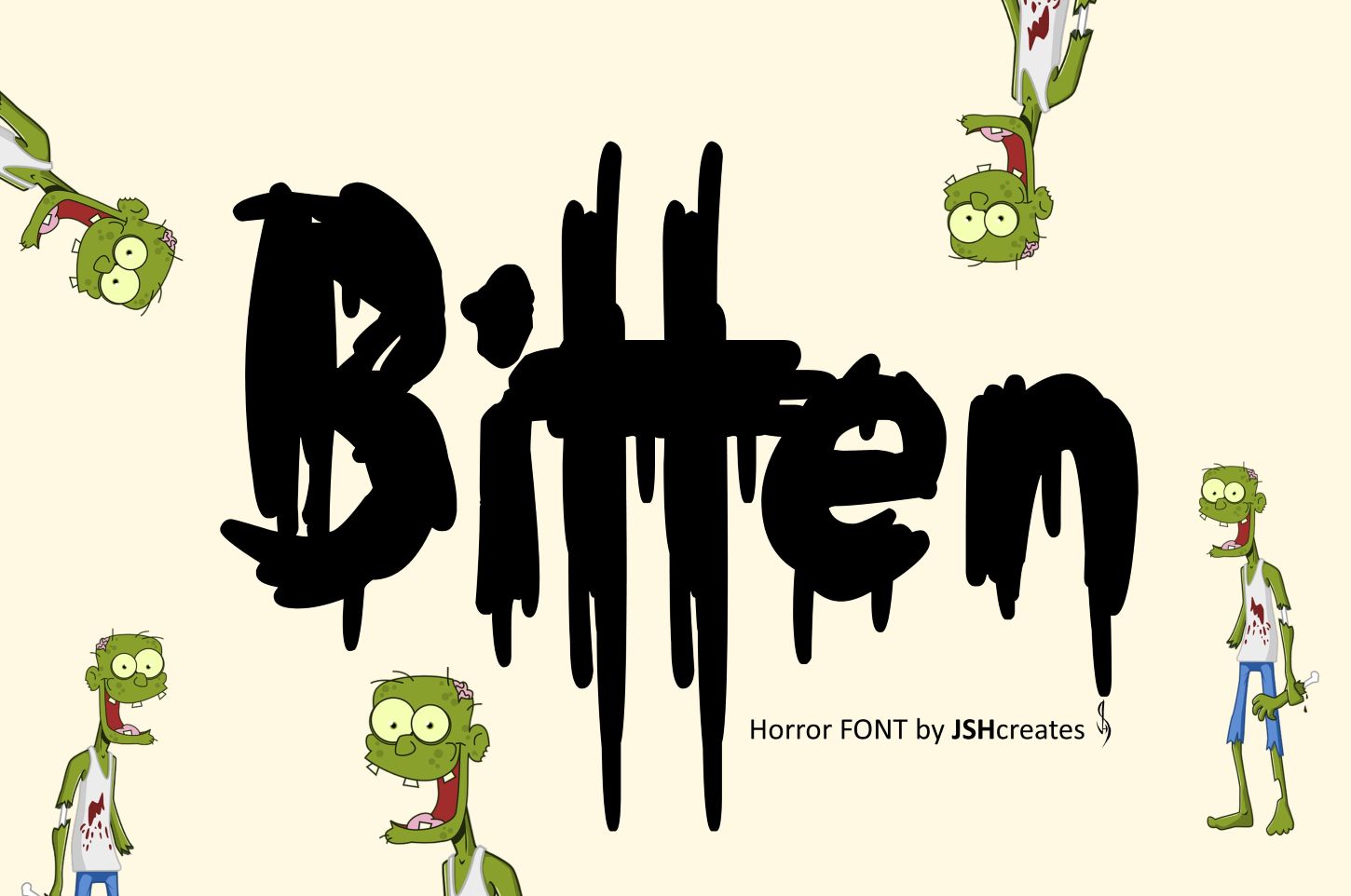
Bitten Font
Dripping horror font. “Bitten”. Perfect for advertising and display purposes, including banners, book covers, shirts, posters, logos and much more!
Font includes all upper and lowercase letters, numbers, some characters and punctuation.